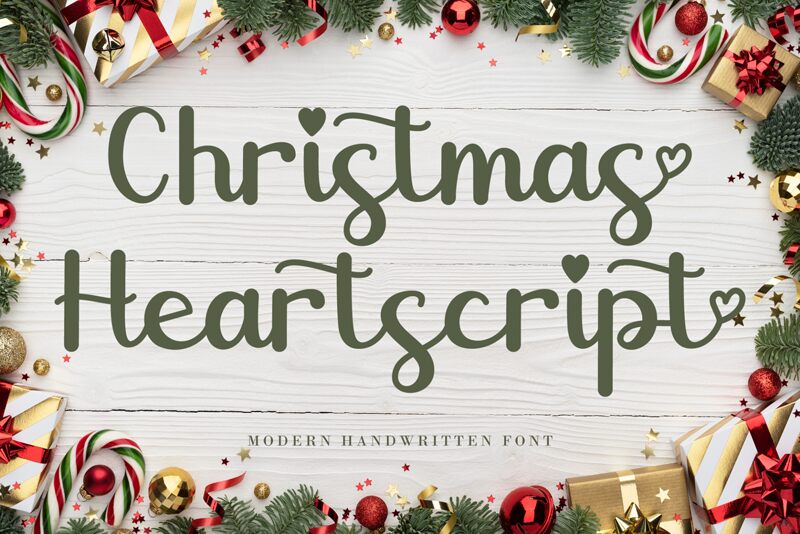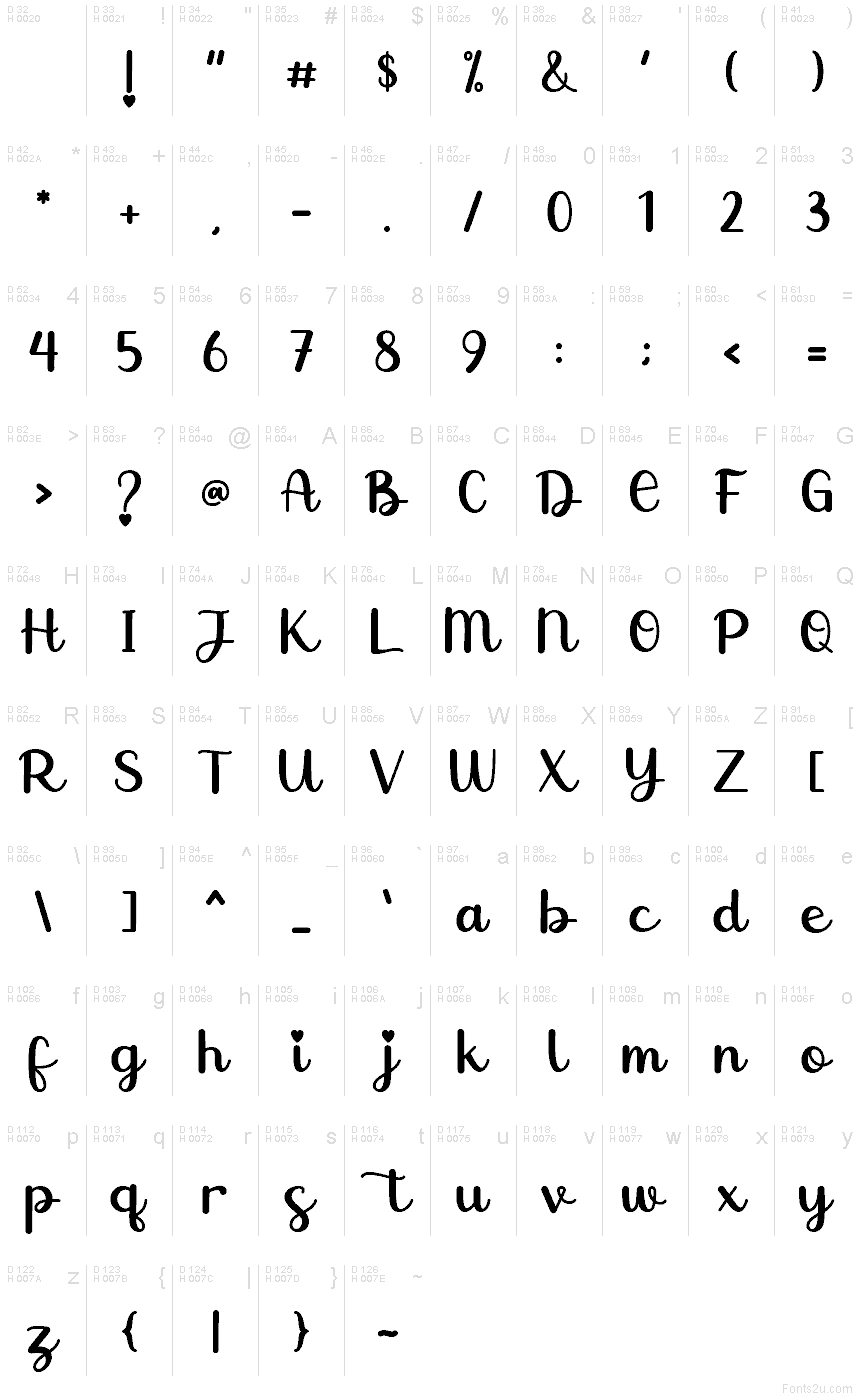
Christmas Heartscript
Christmas Heartscript font by AEN Creative Studio is a free Christmas script typeface that captures the feeling of handwritten holiday cards and cozy fireplace nights. Its looping strokes, plump curves, and tiny heart flourishes give text a warm, homemade feel, like frosting piped onto sugar cookies. Letters connect smoothly, so words flow in a friendly, bouncy rhythm that instantly says “festive” without looking stiff or staged.
Using Christmas Heartscript, you can bring charm to greeting cards, gift tags, party invitations, seasonal logos, social media graphics, and product packaging. This free font shines at larger sizes where its curls and hearts can really show, and it pairs nicely with a clean sans serif for supporting text.